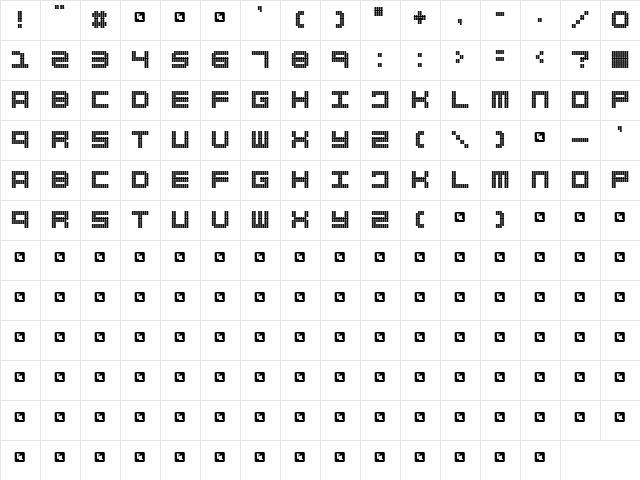
FD Spank Medium
| Foundry | Leigh Flurry |
| Designer | Leigh flurry |
Design Context for FD Spank Typeface
FD Spank takes a measured approach to typography — its balanced proportions and neutral character make it a reliable workhorse for both digital and print work.